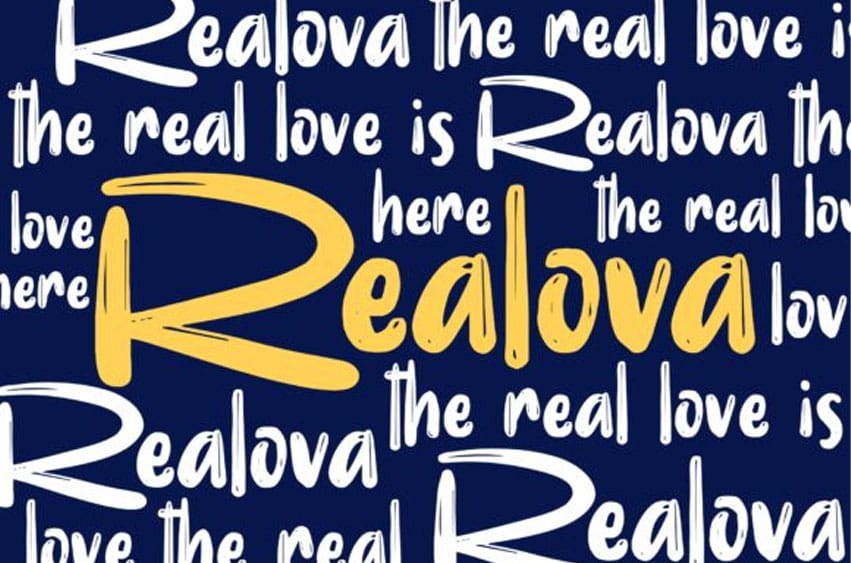
Realova Font is an amazing display typeface. It has a bold and striking style with a little brush effect which will make any design stand out.
It’s perfect for book titles, typography designs, posters, quotes, shirt designs, logos, templates, banners, flyers, headlines, titles, and much more!